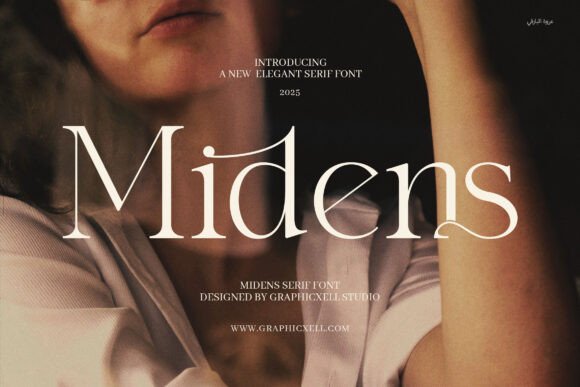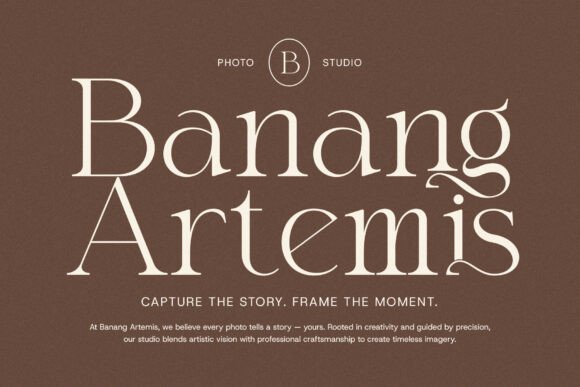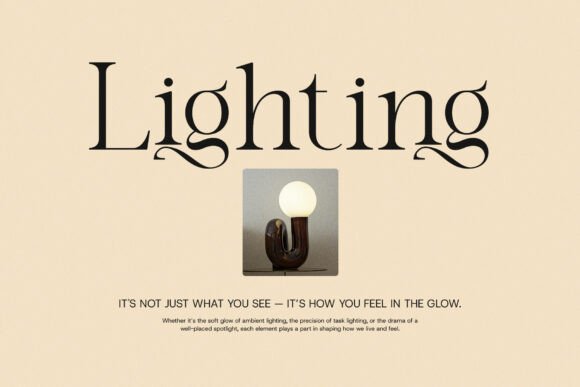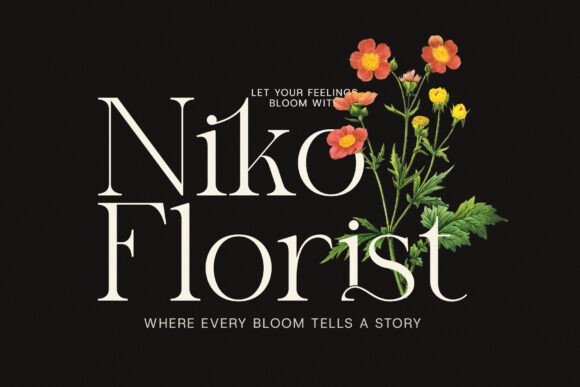
Midens Font: Modern Serif Typography for Elegant Branding & Logo Design
About the Midens Font
Get ready to be inspired by Midens Font, a fresh and dynamic typeface for modern creators. Introducing the **Midens Elegant Serif Font** – a stunning fusion of modern design and timeless elegance. With its sleek, sophisticated serifs and unique letterforms, Midens is the perfect font to elevate any creative project. Its refined beauty makes it a standout choice for those looking to add a touch of luxury to their designs.
Midens combines classic serif elements with contemporary styling, offering a balanced and polished look. Its elegant structure ensures exceptional readability while delivering a sense of exclusivity and style. The graceful curves and sharp details of each character create a refined, upscale appearance, making it ideal for a wide variety of design applications.
From high-end branding and sleek logos to eye-catching websites and elegant product packaging, Midens Elegant Serif Font enhances your visual identity with ease. Its versatility allows it to shine in industries like fashion, food, beauty, and lifestyle, where sophistication and attention to detail are key. Whether you’re designing for a boutique, a luxury product, or an upscale magazine layout, Midens provides the perfect blend of modernity and elegance.
Perfect for both print and digital designs, Midens elevates your projects by adding a professional yet artistic flair. If you want to create designs that exude refinement, clarity, and style, Midens Elegant Serif Font is your go-to choice. Let this sophisticated typeface be the foundation of your brand’s identity and make your projects unforgettable.
Midens Font Usage Examples
Midens Font Example